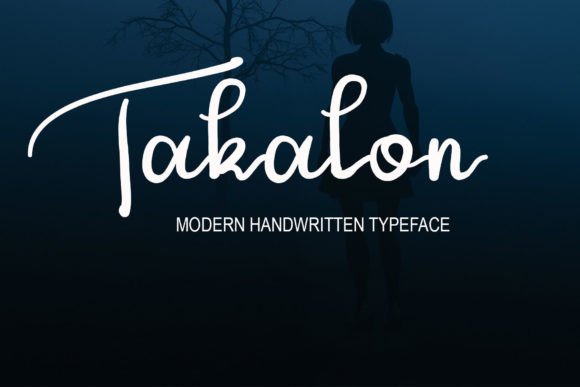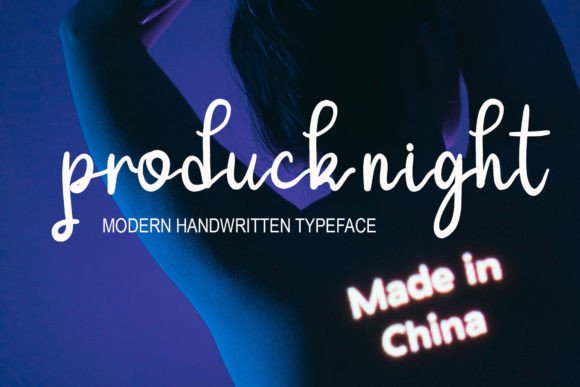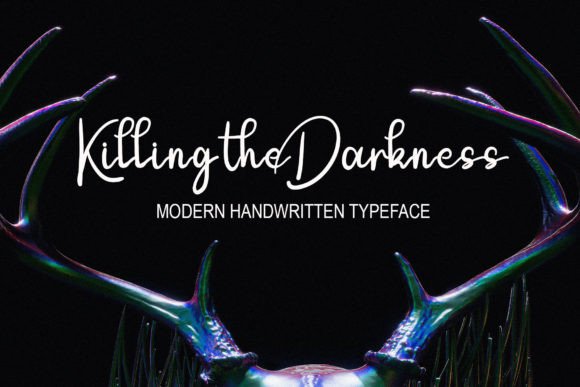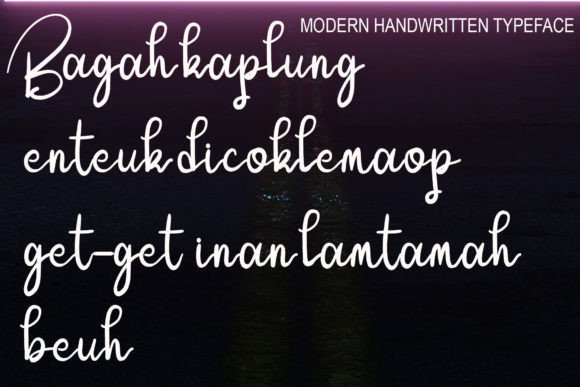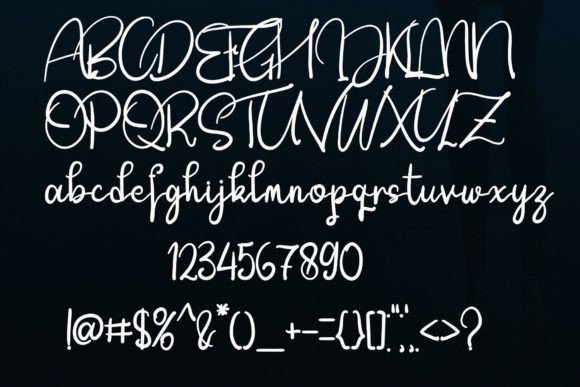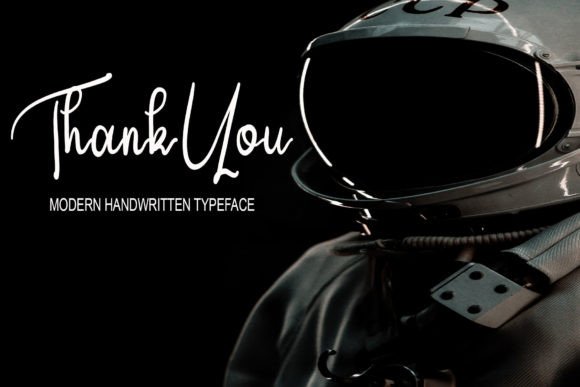
Takalon Font
About Takalon Font
A Simple and Stylish Handwritten Font
The Takalon Font is a beautifully handwritten typeface created using a tablet, offering a natural, simple design with a stylish appeal. While it retains a minimalist look, the Takalon Font adds elegance and personality to any project. Whether you’re working on websites, wedding invitations, business cards, signatures, or advertisements, this font provides a clean yet stylish aesthetic that enhances your designs.
Ideal for Websites and Digital Designs
The Takalon Font is an excellent choice for websites and digital design projects. Its simple yet elegant style makes it perfect for website headers, blog titles, and online advertisements. Whether you’re designing a personal blog or a business website, this font brings a natural, approachable feel while ensuring readability and modern appeal.
Perfect for Wedding Invitations and Signatures
If you’re working on wedding invitations, the Takalon Font adds a personal, handwritten touch without feeling overly ornate. Its clean lines and simple design ensure that your invitations remain elegant yet easy to read. Additionally, the font is perfect for signatures and personal branding, making it ideal for those who want a more unique and customized touch in their designs.
Great for Business Cards and Branding
The Takalon Font works beautifully for business cards and branding materials. Its simplicity makes it easy to incorporate into both formal and informal branding projects. Whether you’re designing a corporate business card, logo, or tagline, the Takalon Font strikes the perfect balance between professionalism and personal flair. This makes it suitable for businesses in industries ranging from fashion to technology.
Perfect for Advertisements
Whether you’re working on product advertisements or general marketing materials, the Takalon Font adds a cool, stylish edge to your design. Its simplicity makes it versatile for a variety of advertising projects, from print ads to online promotions. This font gives your design a unique, handwritten touch while maintaining readability and a professional appearance.
A Cool and Stylish Yet Simple Font
Although the Takalon Font maintains a simple design, it still has a cool and stylish edge that makes it stand out. Its clean, handwritten appearance ensures that your content remains fresh and modern, perfect for those looking for a minimalist yet impactful font. Its balance of simplicity and style makes it adaptable to a wide range of design needs.
Add Simplicity and Style to Your Designs with Takalon Font
If you’re looking for a simple, stylish handwritten font for your next project, the Takalon Font is the perfect choice. Whether you’re designing websites, business cards, wedding invitations, signatures, or advertisements, this font provides an elegant, minimalist aesthetic that adds personality and charm to your designs. Bring a unique, cool touch to your projects with the Takalon Font.